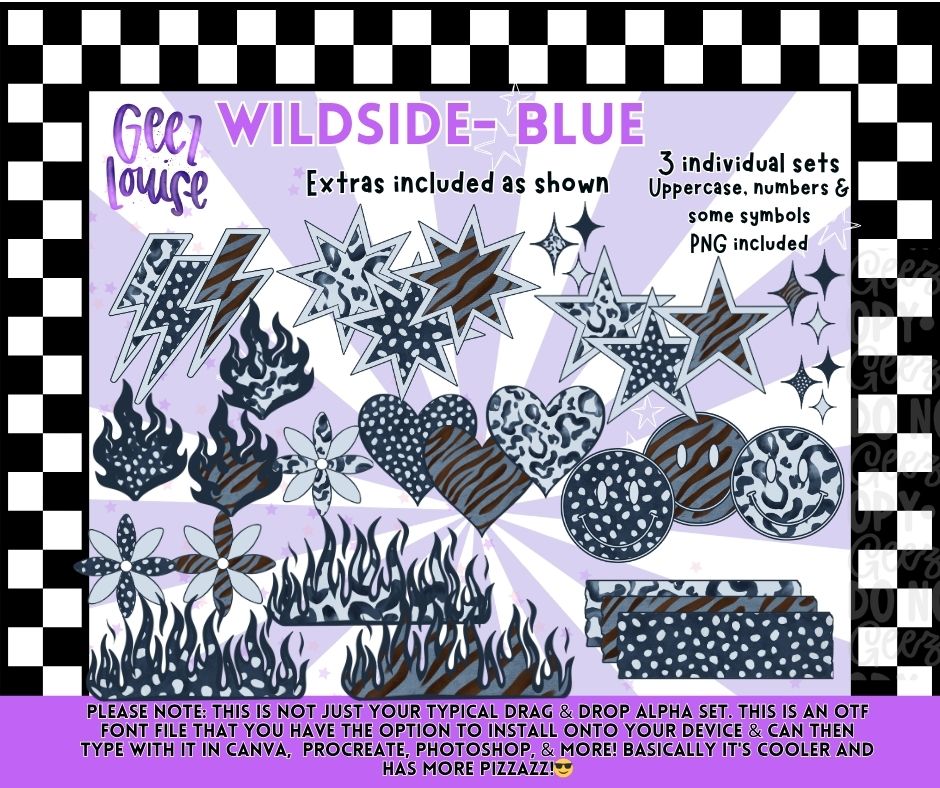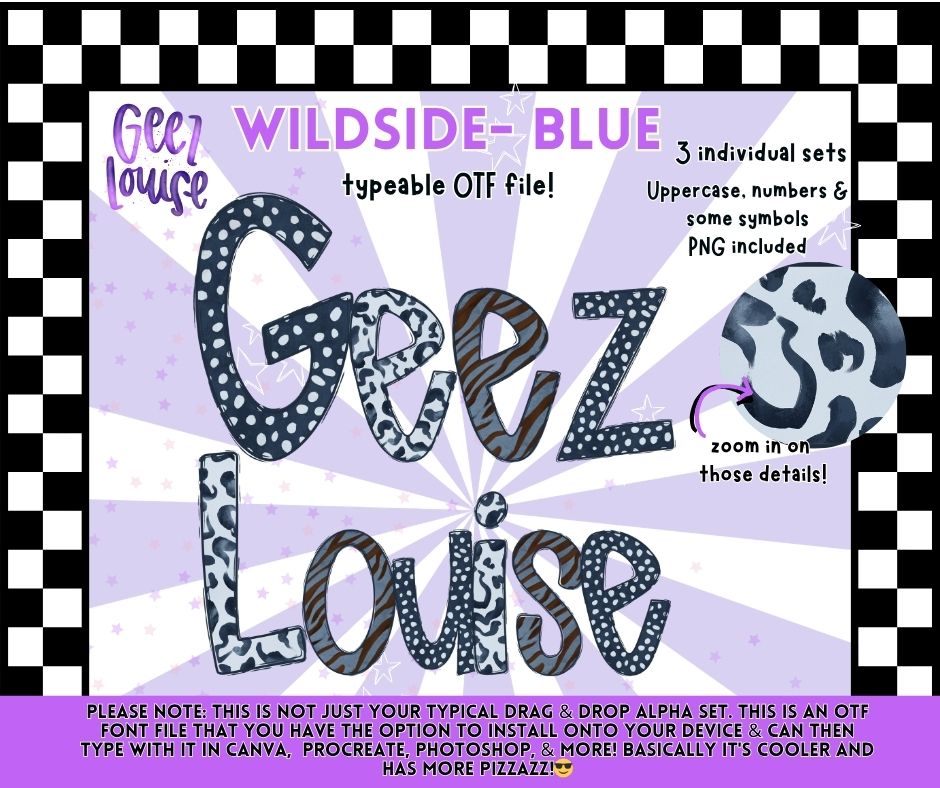
Wildside Blue OTF Font Bundle | Typeable Alpha Font with Extras & PNGs
Bold patterns, edgy details, and wild energy collide in the Wildside Blue OTF Font Bundle 💙⚡
This typeable alpha bundle includes 3 individual coordinating sets packed with trendy prints, statement extras, and installable OTF font files designed to make your creations stand out. Perfect for apparel makers, sublimation designers, digital artists, and anyone obsessed with grunge-meets-boutique aesthetics.
- Uppercase letters
- Numbers
- Select symbols
- Coordinating extras as shown
✨ Extras Included:
- Lightning bolts
- Stars
- Hearts
- Flames
- Flowers
- Sparkles
- Pattern strips & shapes
This bundle is giving loud prints, chaotic cool-girl energy, and notebook-doodle nostalgia all wrapped into one wild little package ⚡🐆